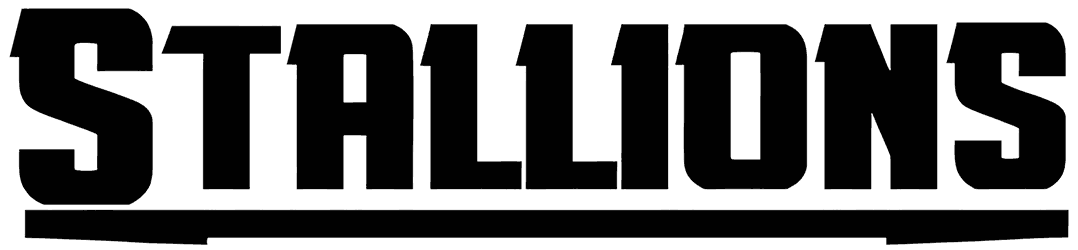
The characters’ structure of Stallions is in a moderate position, neither too modern nor too classic, thus it can be included in a huge set of graphic content ranging from movie posters, video game banners, business cards, and presentations, to invitations.
In addition, this all-caps block font is insanely perfect for grabbing the attention of customers through sharing a sense of jauntiness, modernity, comfort, or momentum with them.